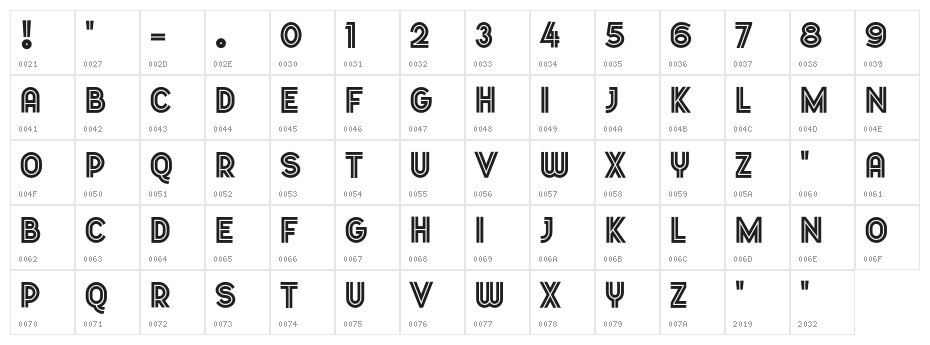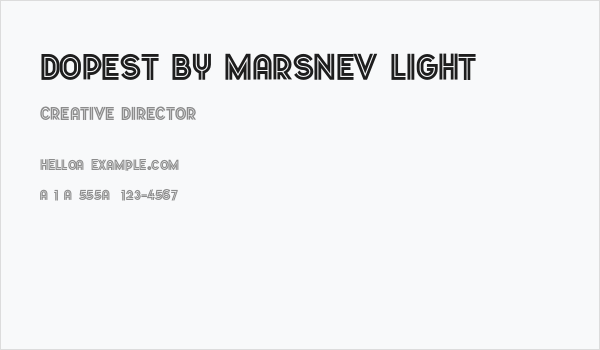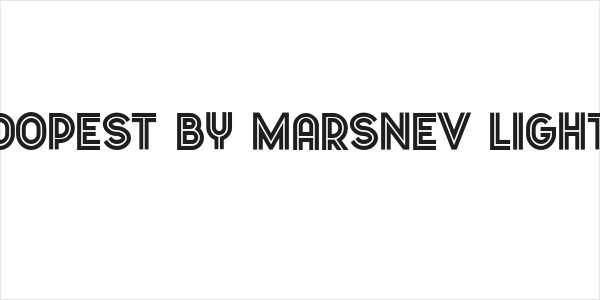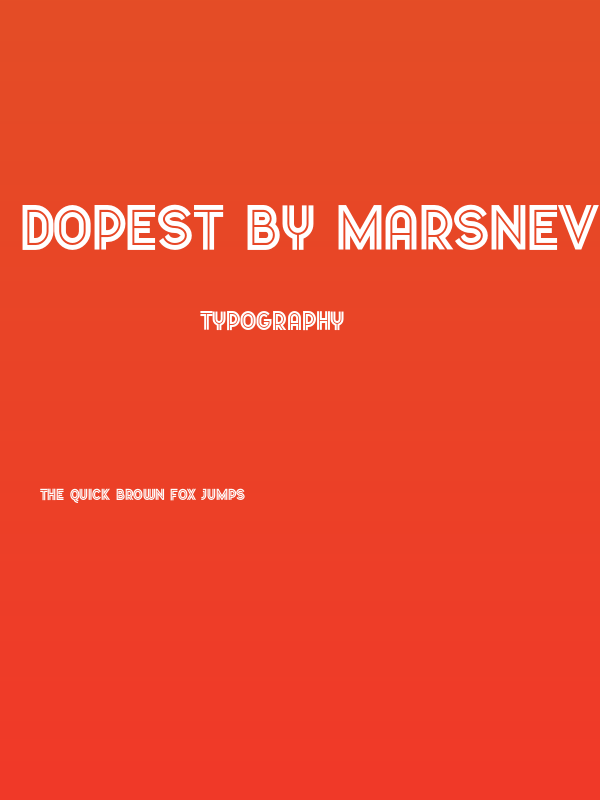
Dopest by MARSNEV light Font
Dopest by MARSNEV light Description
This font features a bold, geometric design with a distinct double-line pattern that gives it a modern and futuristic appearance. The uppercase letters are particularly striking, with clean lines and sharp angles that create a sense of precision and clarity. The numbers and special characters maintain this aesthetic, ensuring consistency across all glyphs. The overall look is both stylish and functional, making it suitable for a variety of design applications where a contemporary and eye-catching typeface is desired.